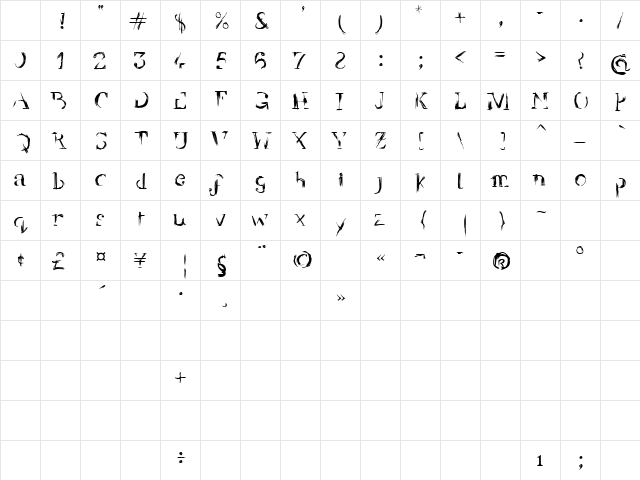
Complete Yellow Back Radio Regular glyph index. Displaying only characters natively supported by Yellow Back Radio Regular font.
Yellow Back Radio is a composed and adaptable typeface that performs quietly and consistently across a wide range of design contexts.